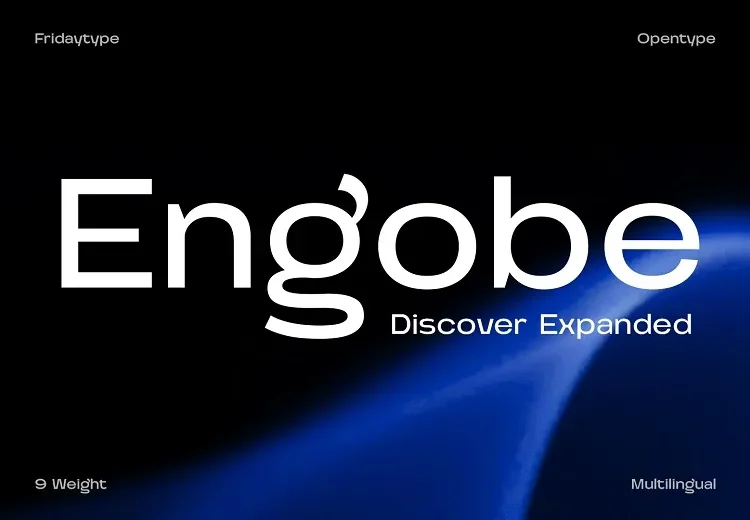
Engobe Font
Engobe is a versatile variable sans-serif font designed to add a contemporary flair to any project. With its customizable weight and width options, Engobe allows designers to tailor the font precisely to their needs, whether it’s for bold headlines or delicate fine print. This adaptability makes Engobe a powerful tool for a wide range of design applications.
Key Features of Engobe Font:
• Variable Font Flexibility: Engobe is a variable font, meaning you can easily adjust the weight and width of the letters. This feature provides immense flexibility, allowing you to create anything from bold, impactful headlines to subtle, refined text, all within the same typeface.
• Contemporary Aesthetics: The modern design of Engobe gives it a sleek and stylish appearance, making it suitable for projects that require a clean, contemporary look. Its aesthetic versatility ensures that it can complement various design styles, from minimalistic to more elaborate compositions.
• Wide Range of Applications: Whether you’re working on logos, branding, posters, or web design, Engobe has the versatility to meet your needs. Its ability to transition seamlessly from heavy to light, wide to narrow, makes it a perfect choice for a variety of design contexts.
Ideal Uses for Engobe Font:
• Logos: Engobe’s customizable features make it ideal for logo design. You can adjust the font to achieve the exact weight and width needed to create a unique and memorable logo that stands out.
• Branding: The clean and modern look of Engobe makes it an excellent choice for branding projects. Whether you’re developing a brand identity for a tech startup or a creative agency, Engobe offers the flexibility to adapt to different branding needs.
• Posters: For posters that need to make a bold statement, Engobe can be adjusted to create eye-catching headlines. Its contemporary design ensures that your poster will have a modern and professional appearance.
• Web Design: In web design, readability and aesthetics are key. Engobe’s variable settings allow you to fine-tune the text for optimal display on screens, ensuring your website looks sharp and is easy to navigate.